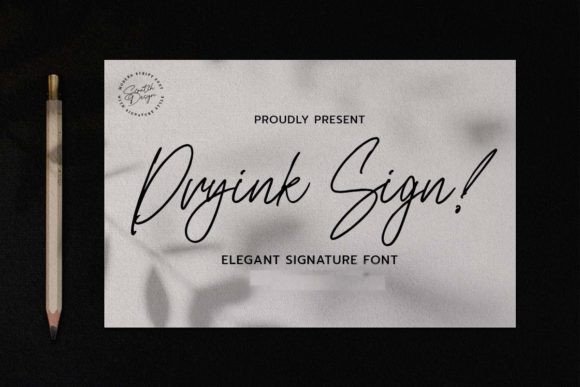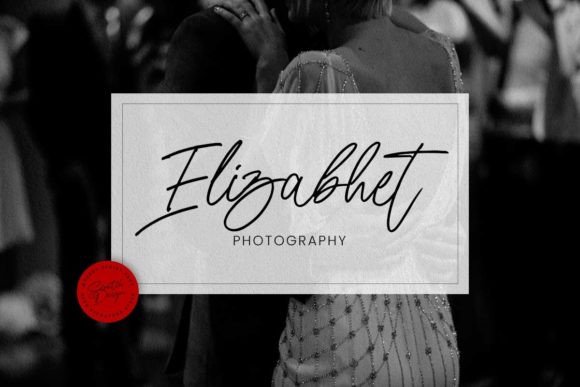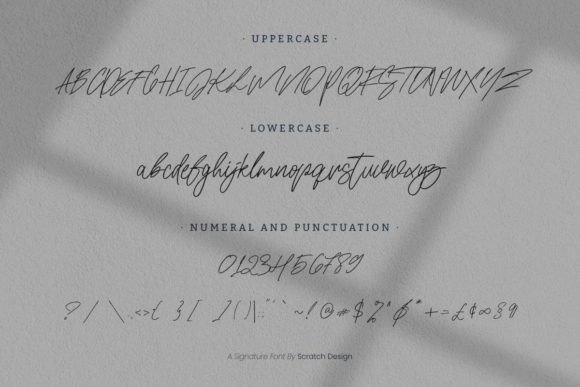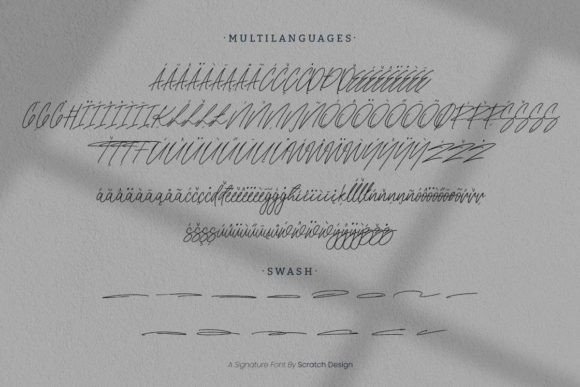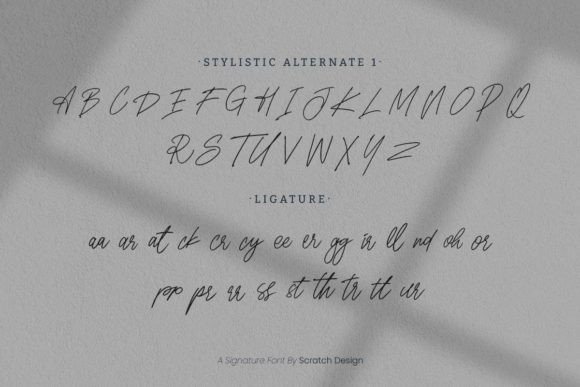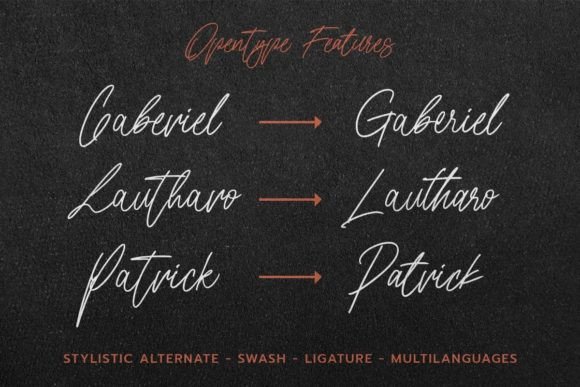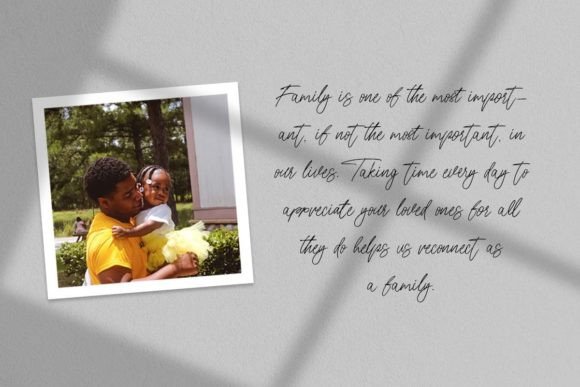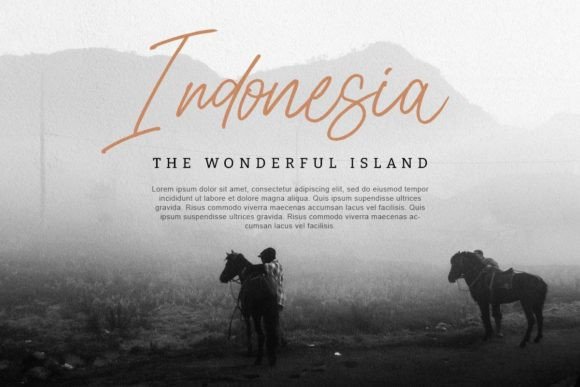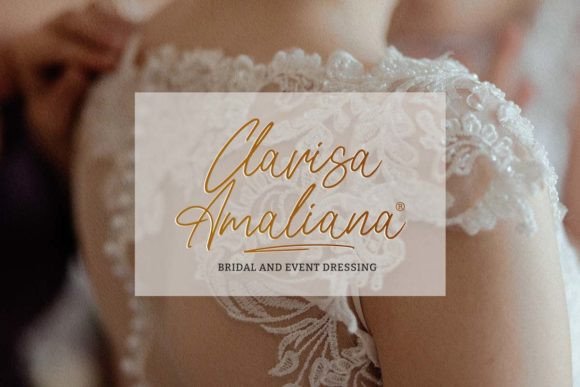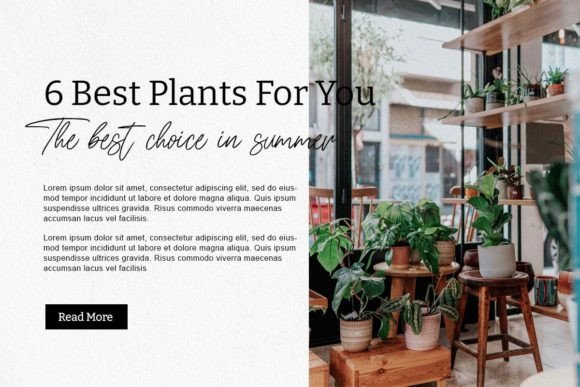
Dryink Sign
Dryink Sign is a cool and elegant signature script font. It will look great when used for branding materials, logos, business cards, resumes, logos, or anything that requires a touch of sophistication and class.